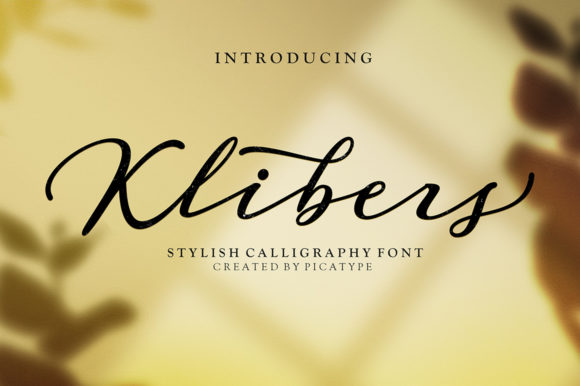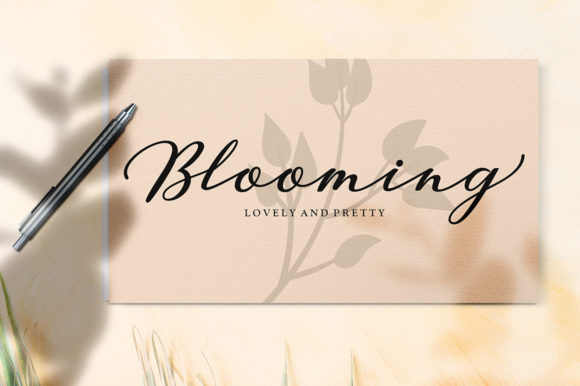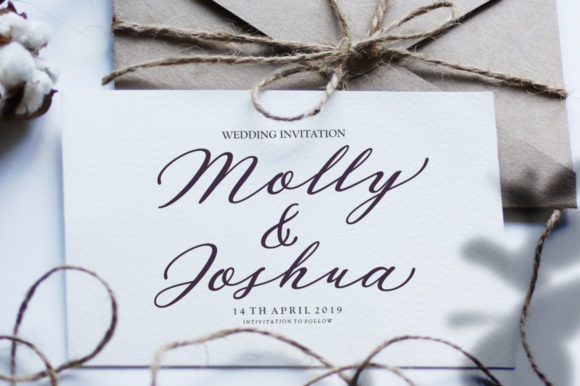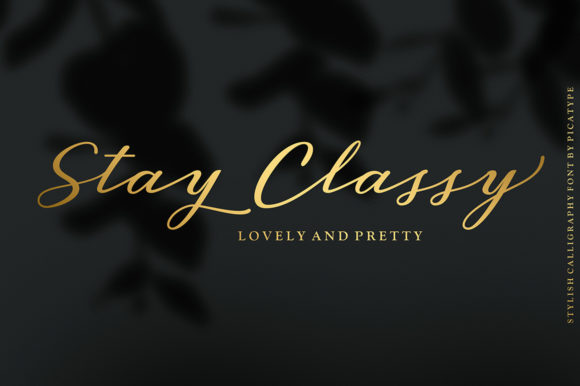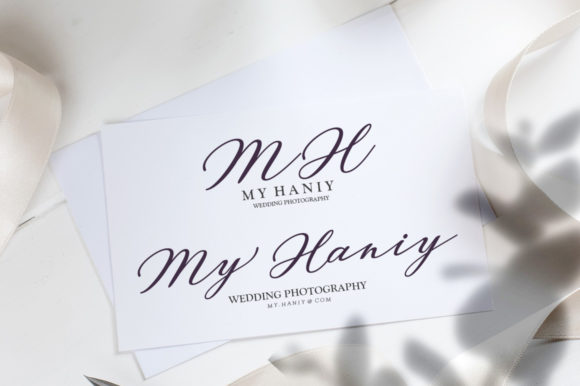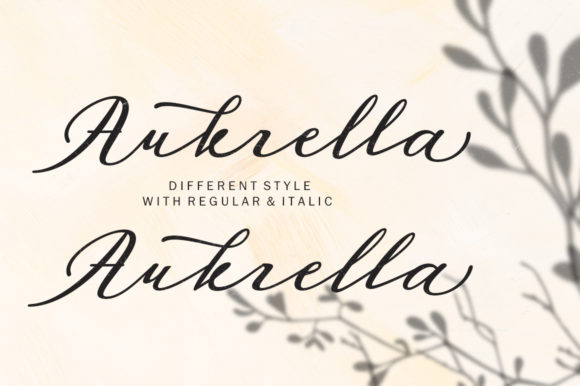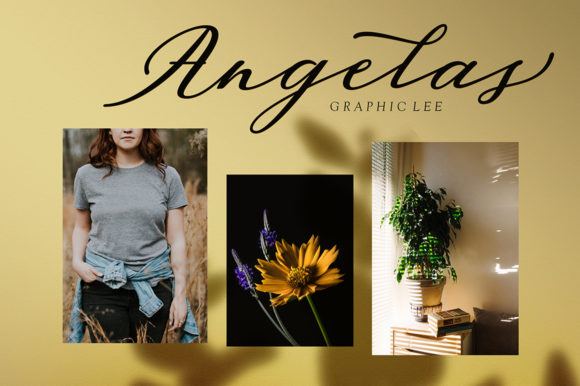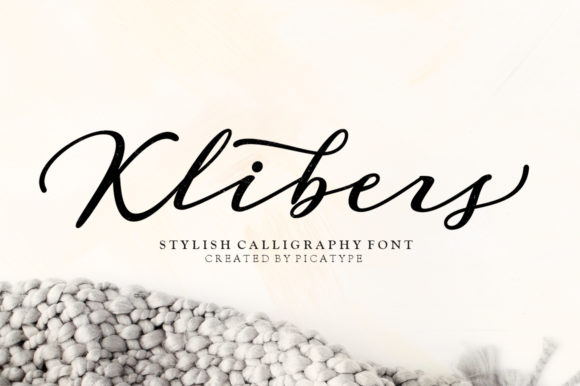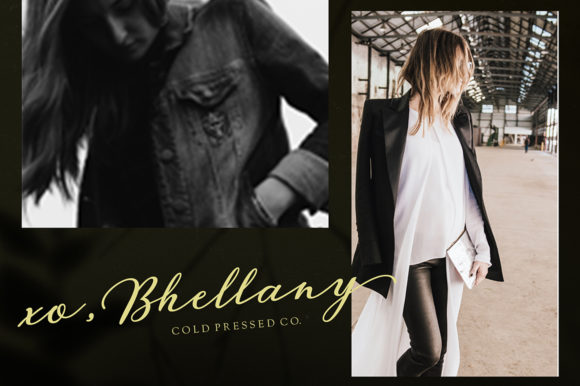
Klibers Font
About Klibers Font
Klibers is a modern calligraphy font that features a varying baseline, smooth lines and a classic and elegant touch. Fall in love with its unique charm, and turn any design project into a stand out!